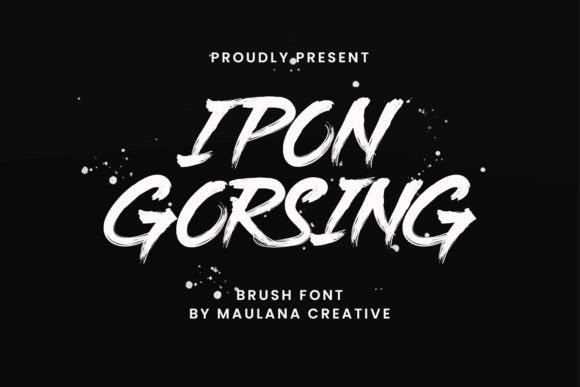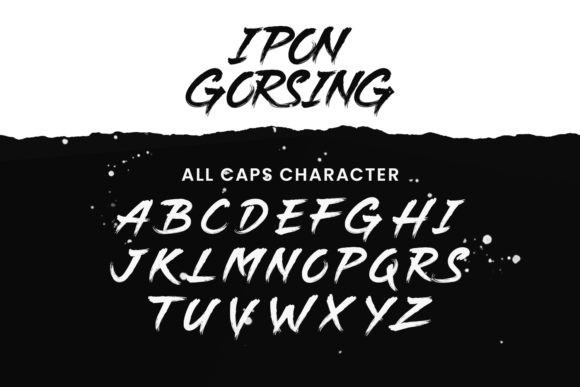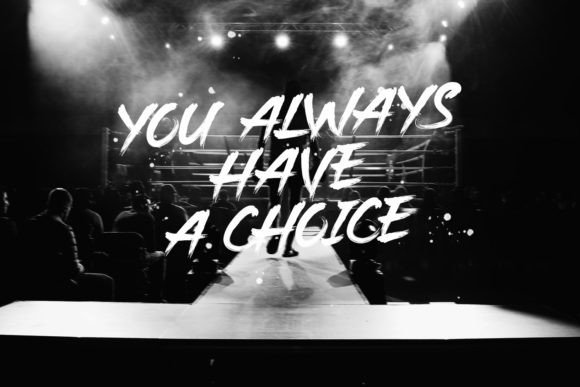
Ipon Gorsing Font
Ipon Gorsing is a bold and brushed display font. Rough textured and urban styled, this font will look great on a variety of informal designs.